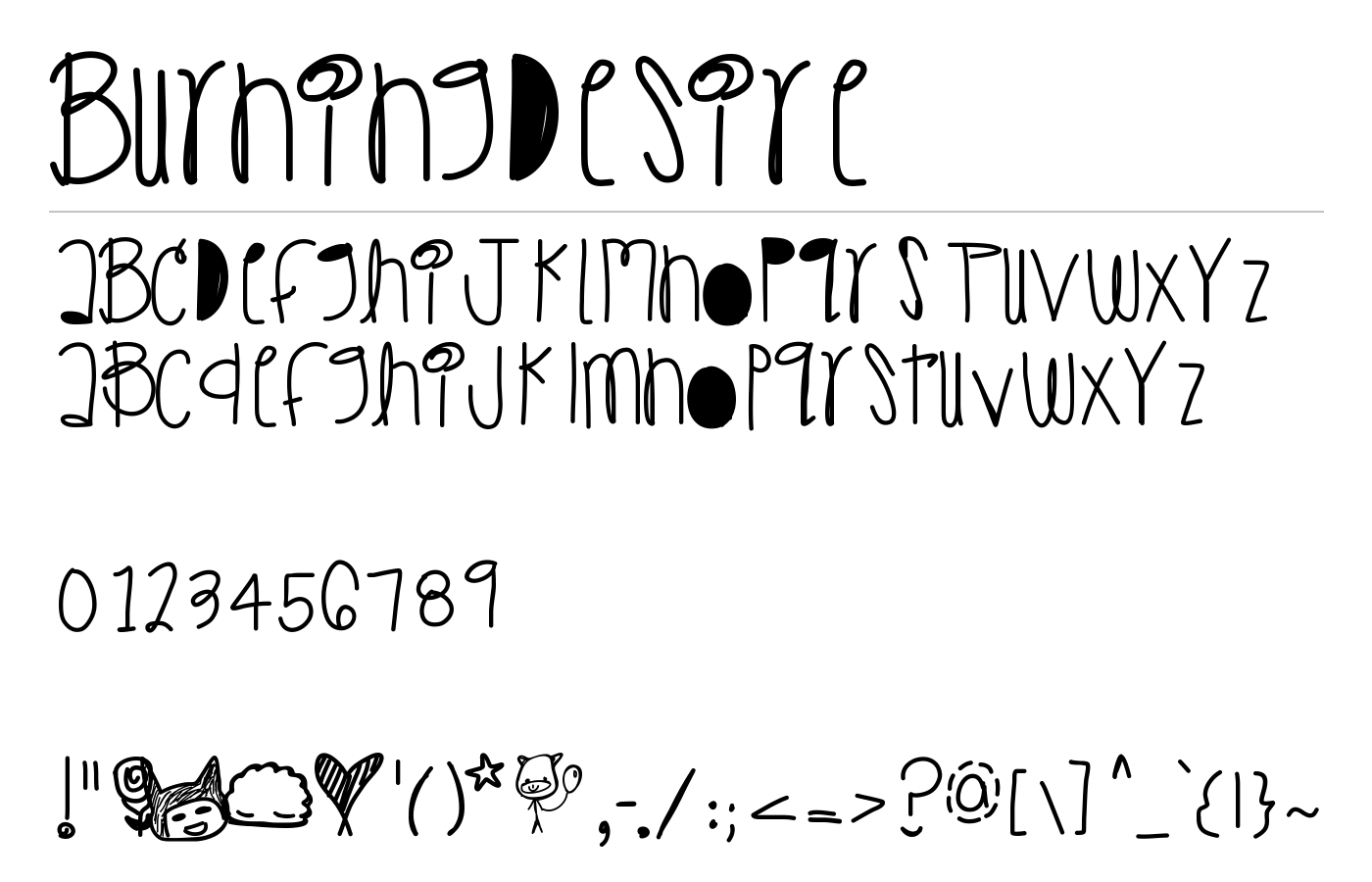
BurningDesire is a whimsical, hand-drawn sans serif font with a tall, narrow structure and playful, irregular letterforms that give it a charming, casual feel. Its light stroke weight combined with unique doodle-like details and quirky alternates makes it perfect for creative projects, children’s books, and fun branding that seeks an inviting, friendly vibe. This font works well in headlines and decorative uses where personality and a handmade touch are desired.
BurningDesire Font
About BurningDesire Font